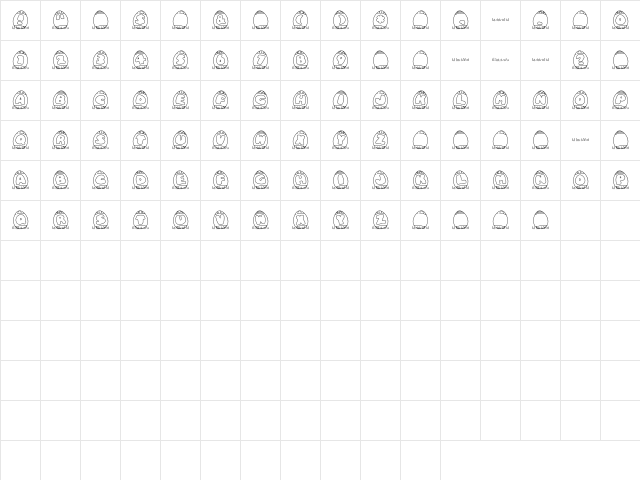
LD Easter Eggs Regular Free Font
Design Context for LD Easter Eggs
LD Easter Eggs is a composed and adaptable typeface that performs quietly and consistently across a wide range of design contexts.
Pro Tip: Use LD Easter Eggs in both headline and body roles to test its range before committing to a single application.